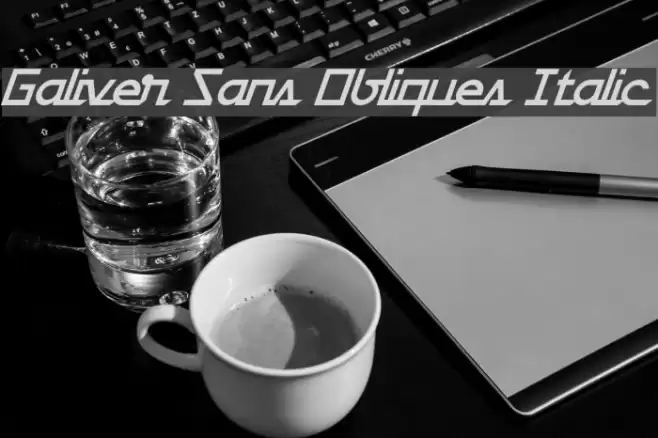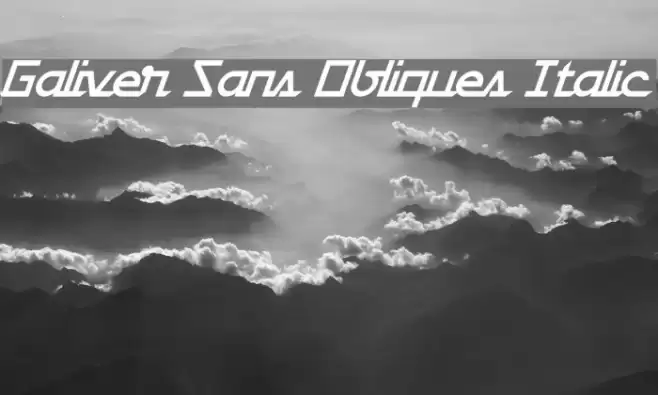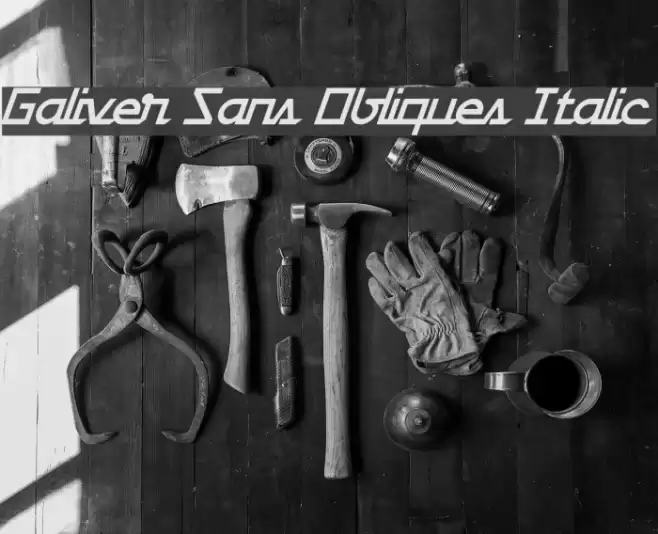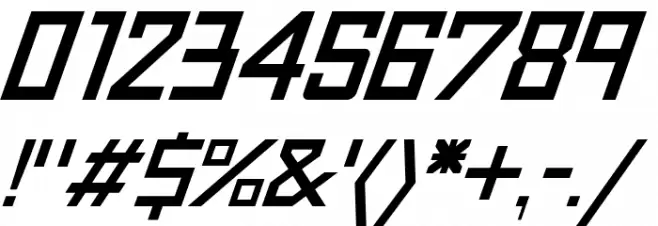
Galiver Sans Obliques Italic Font
Galiver Sans Obliques Italic Description
This font features a dynamic and modern design with a distinct slant, giving it an italicized appearance. The characters are bold and angular, with sharp edges and a futuristic feel. The uppercase and lowercase letters maintain a consistent style, with the lowercase characters mirroring the angularity of the uppercase. Numbers are equally bold and follow the same slanted design, ensuring uniformity across all characters. Special characters are designed to match the overall aesthetic, making this font suitable for projects that require a modern and edgy look.
A bold, italicized font with angular, futuristic characters from Uncategorized fonts.
- Proposed Projects: Ideal for branding, advertising, and modern digital interfaces where a bold statement is needed.
- Use Case: Headlines, Logos, Advertising